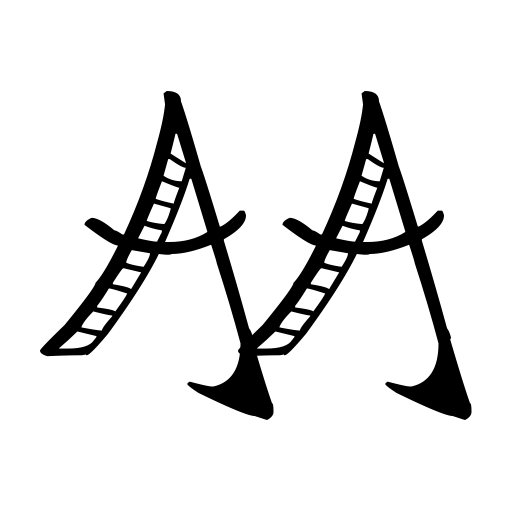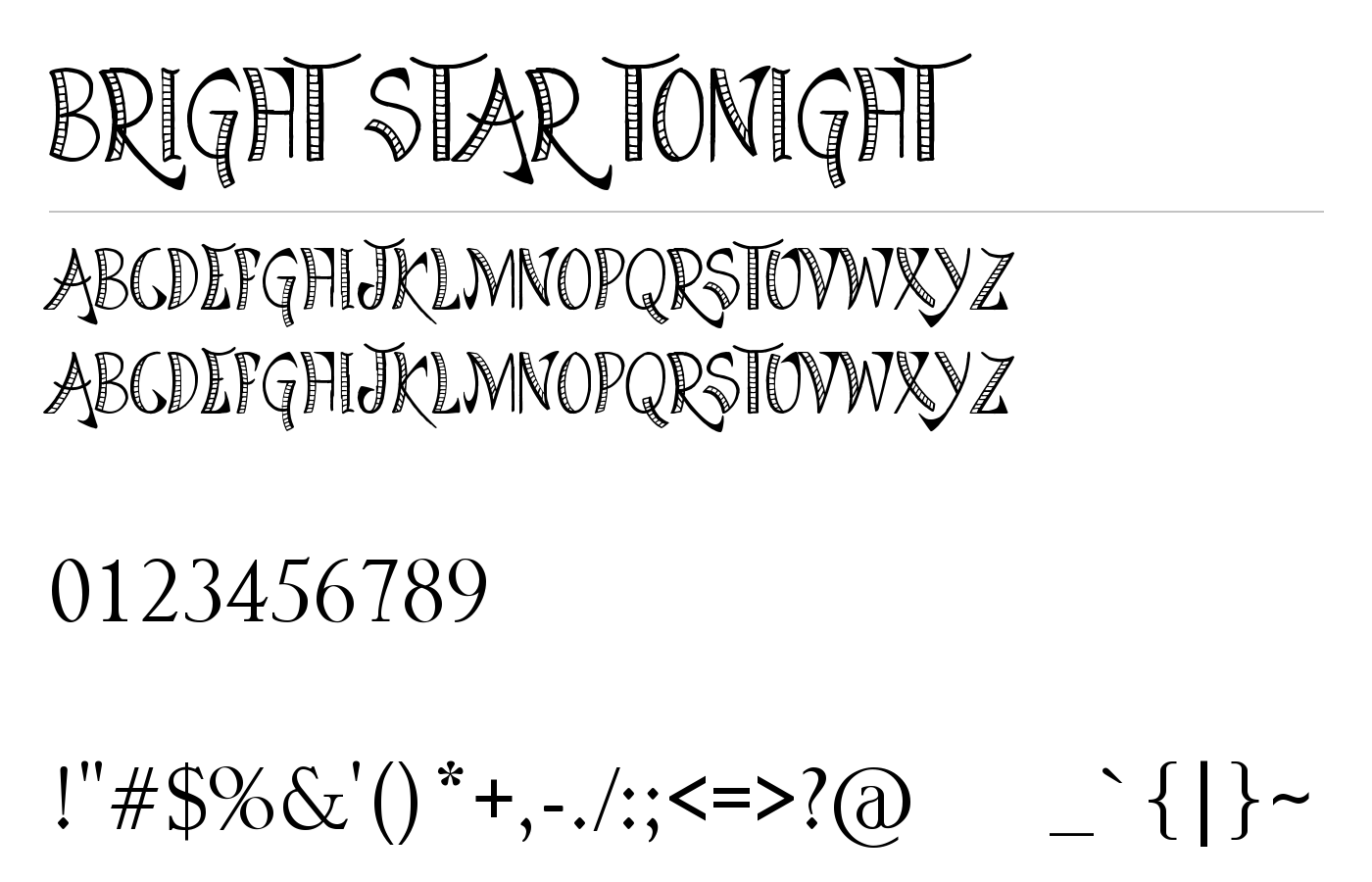
Bright Star Tonight is a whimsical, decorative serif font with a playful, hand-drawn feel, characterized by its thin, irregular strokes and stylized, curved serifs. Its unique shapes and lively design make it ideal for creative projects, poster titles, or branding that aims to evoke a magical, artistic, or fantasy-inspired mood. This font works best in headlines or display uses where personality and charm can shine through.
Bright Star Tonight Font
About Bright Star Tonight Font